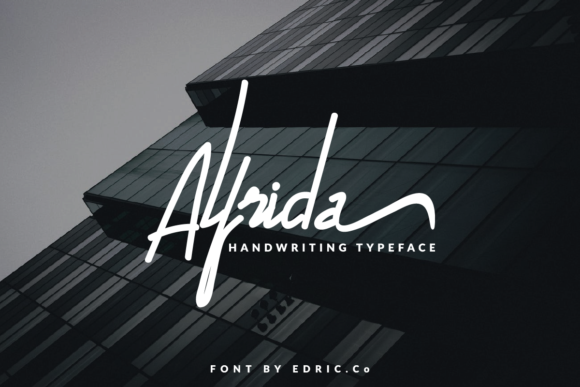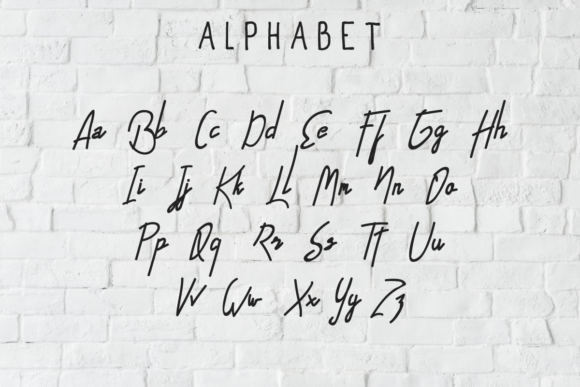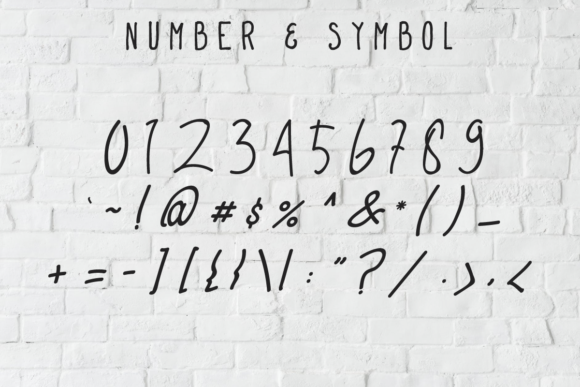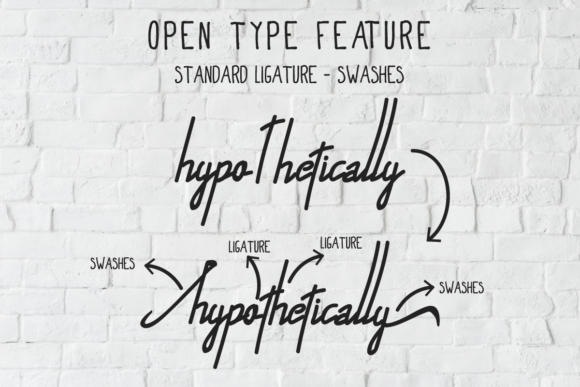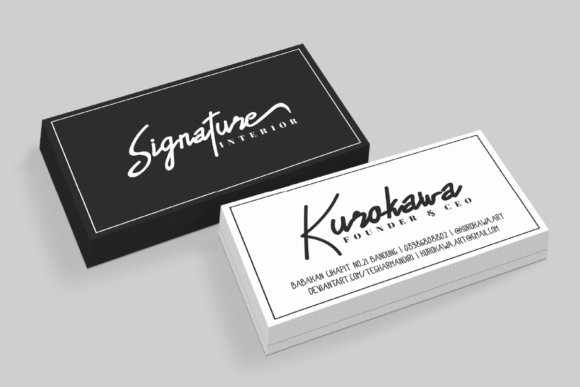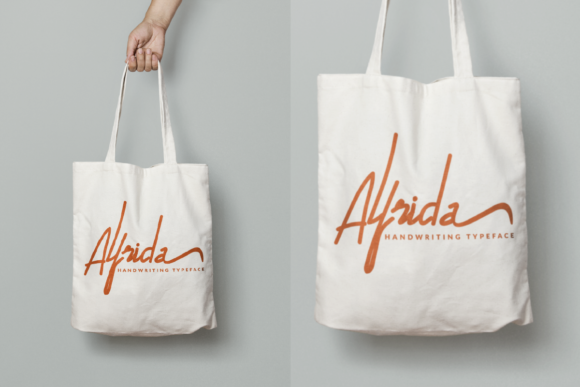
Discover the Timeless Charm of Alfrida Font
Do you remember the moment when a simple handwritten note from a loved one brought a smile to your face? Maybe it was a childhood drawing or a heartfelt message scribbled on a postcard. Those moments are what inspire us to create beautiful typography that speaks to our emotions.
That’s exactly what the Alfrida Font embodies – a lovely and charming handwritten font with a contemporary twist. Its purpose is to bring a touch of warmth and personality to your designs, whether it’s a wedding invitation, a social media post, or a brand identity. For designers, Alfrida Font is a valuable addition to their toolkit, offering a unique feel that sets their work apart from the ordinary.
Alfrida Font Key Features
- Font Family: Alfrida Font is a script font, designed to resemble handwritten text.
- Unique Characteristics: Alfrida Font features a unique, flowing script style with elegant flourishes and connections between letters.
Review of Alfrida Font
I recently had the chance to work with Alfrida Font, and I must say it’s a unique and intriguing typeface. ✨ One of the things that stands out is its elegant, vintage aesthetic. It’s perfect for designers who want to add a touch of sophistication and refinement to their projects.
Alfrida Font is available in multiple weights and styles, which gives designers a good amount of flexibility when it comes to choosing the right font for their project. ✨ The font is also highly legible, making it a great choice for body text or headings.
While Alfrida Font has its strengths, there are some limitations to consider. ⚠️ One of the main issues is the font’s limited support for certain languages. If you need a font that can handle complex scripts or languages, Alfrida Font may not be the best choice.
Overall, I think Alfrida Font is a solid choice for designers who are looking for a elegant, vintage typeface. While it may not be the best choice for every project, it’s definitely worth considering for designs that require a touch of sophistication and refinement.
- Elegant, vintage aesthetic
- Available in multiple weights and styles
- Highly legible
- Limited support for certain languages
Alfrida Font Practical Application Guide
Alfrida Font is ideal for creating elegant and sophisticated designs, such as invitations, wedding stationery, and luxury branding materials.
Alfrida Font is perfect for creating high-end graphics, logos, and typography-based designs.
Alfrida Font is great for creating professional-looking presentations, reports, and documents.
Alternatives to Alfrida Font for Designers
Playfair Display is a luxurious, high-end serif font that exudes elegance and sophistication. It’s ideal for use in branding, advertising, and editorial content where a touch of luxury is desired.
Compared to Alfrida Font, Playfair Display has a more ornate and intricate design, making it better suited for high-end applications. While Alfrida Font has a more modern feel, Playfair Display is more traditional and classic.
Great Vibes is a modern script font that conveys a sense of friendliness and approachability. It’s perfect for use in logos, signage, and packaging where a casual, handwritten feel is desired.
Compared to Alfrida Font, Great Vibes has a more fluid and cursive design, making it better suited for applications where a personal touch is needed. While Alfrida Font is more versatile, Great Vibes is more limited in its uses.
Carolyna Pro is a modern sans-serif font that is highly legible and versatile. It’s ideal for use in digital applications, such as websites and mobile apps, where a clean and modern design is desired.